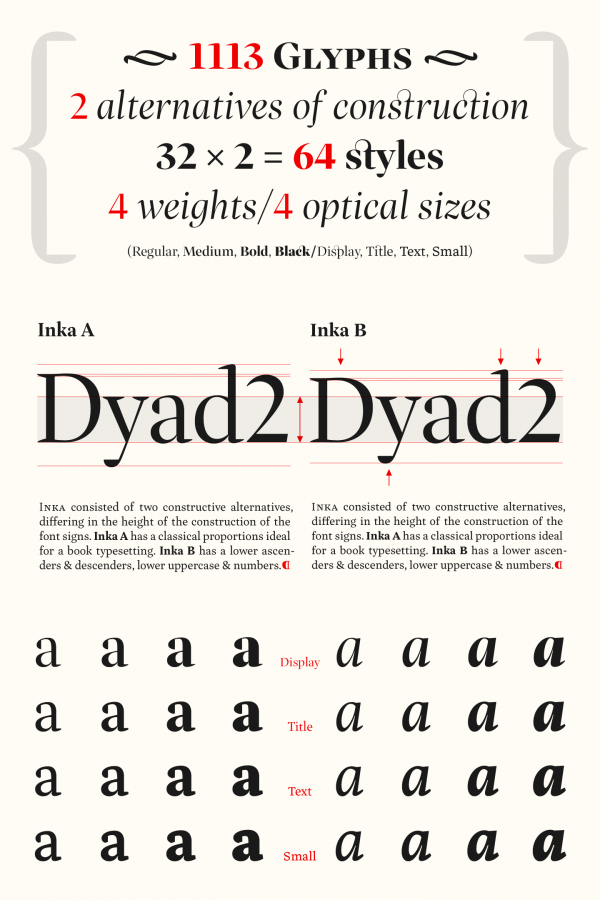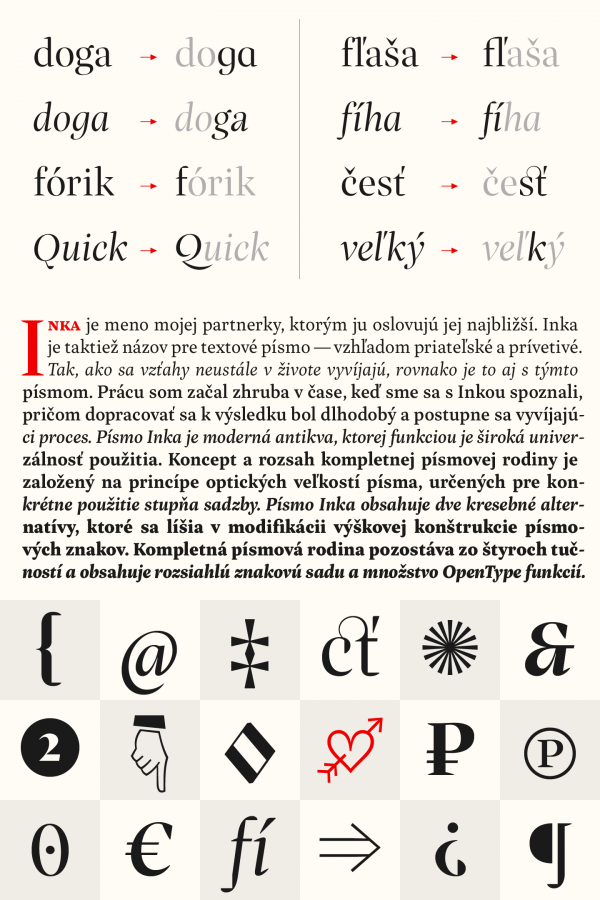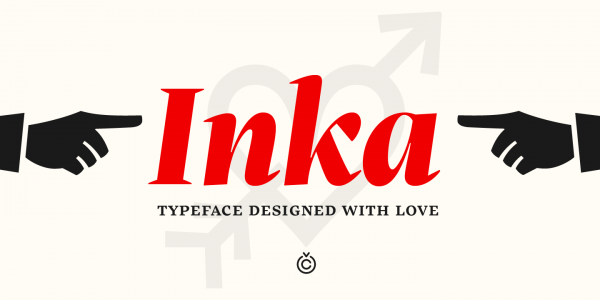
The Inka font family, a typeface by Samuel Čarnoký of foundry Carnoky Type.
Samuel Čarnoký’s Inka font family is based on a modern serif typeface that offers a wide range of functionality for multi purpose. The family with all its styles, weights, and options is intended for editorial use in books, journals, and newspapers. Inka includes different drawing variations for the typesetting of small sizes, text typesetting, and larger typesetting sizes for titles as well as headlines in striking display sizes. The family comes with two constructive alternative versions. Inka A offers classic proportions that work very well for book typesetting. Inka B is based on lower ascenders and descenders as well as lower uppercase signs and numbers. All font sets (Small, Text, title, Display) include four weights (Regular, Medium, Bold, Black) and matching italics for each weight. With all the included OpenType features, Inka is a font family for highly professional use. You can get this family as webfont and desktop font. For additional information, please follow the link below.